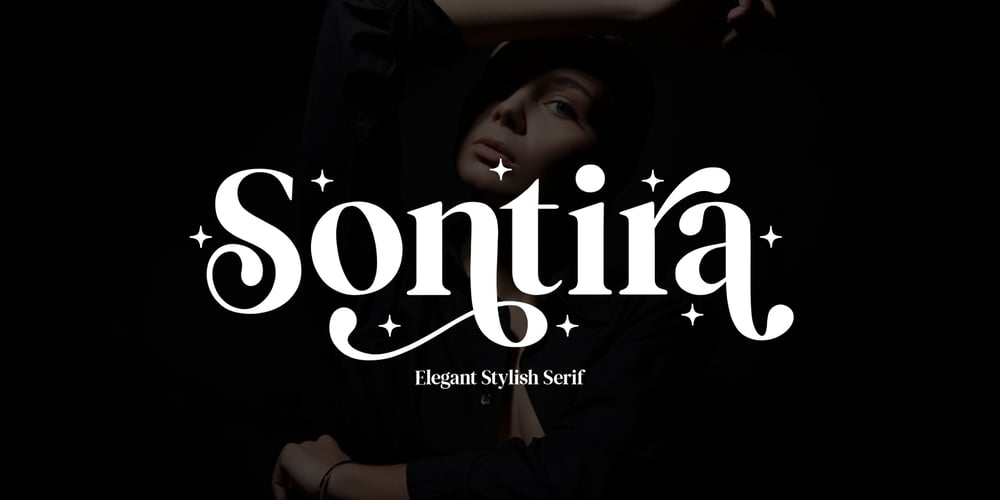
Sontira Font Family was designed by Muhammad Niko Yudha and published by Brand Type. Sontira contains 1 styles and family package options. Sontira – Elegant StylishSontira is a stylish font that is chic, elegant and unique font that uses ligatures to smoothly link letters. Perfect for branding, logos, invitation, masterheads and more.Wish you enjoy our font and if you have a question, don’t hesitate to drop message & I’m happy to help ๐